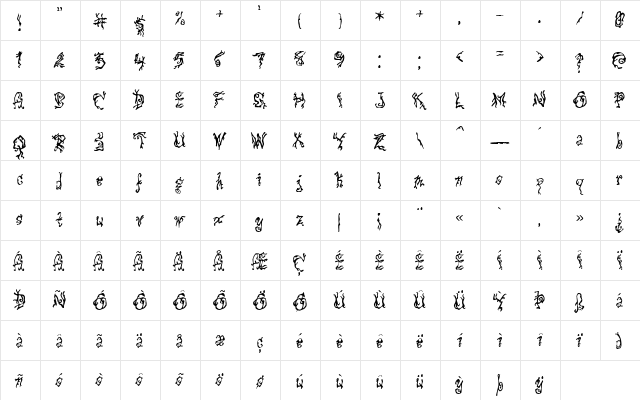
Pulse State Regular Font Preview
Pulse State Regular
Design Context for Pulse State Typeface
Pulse State is a composed and adaptable typeface that performs quietly and consistently across a wide range of design contexts.